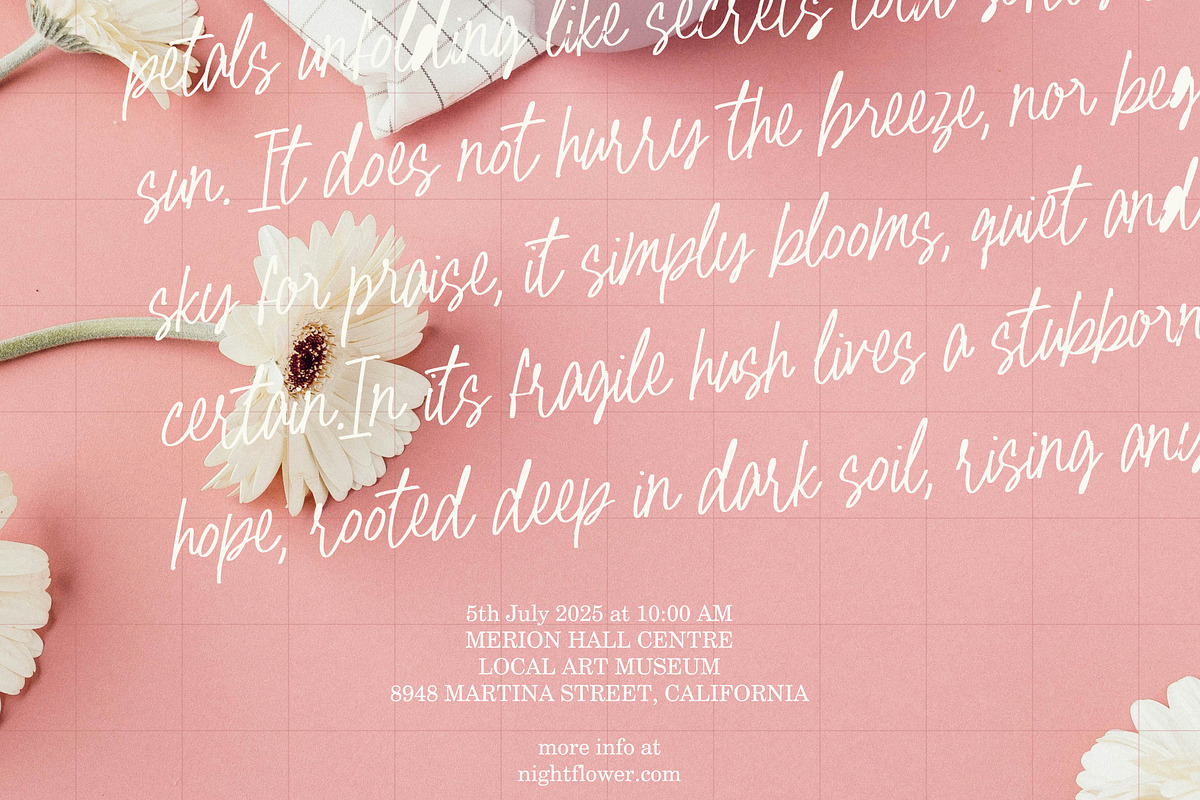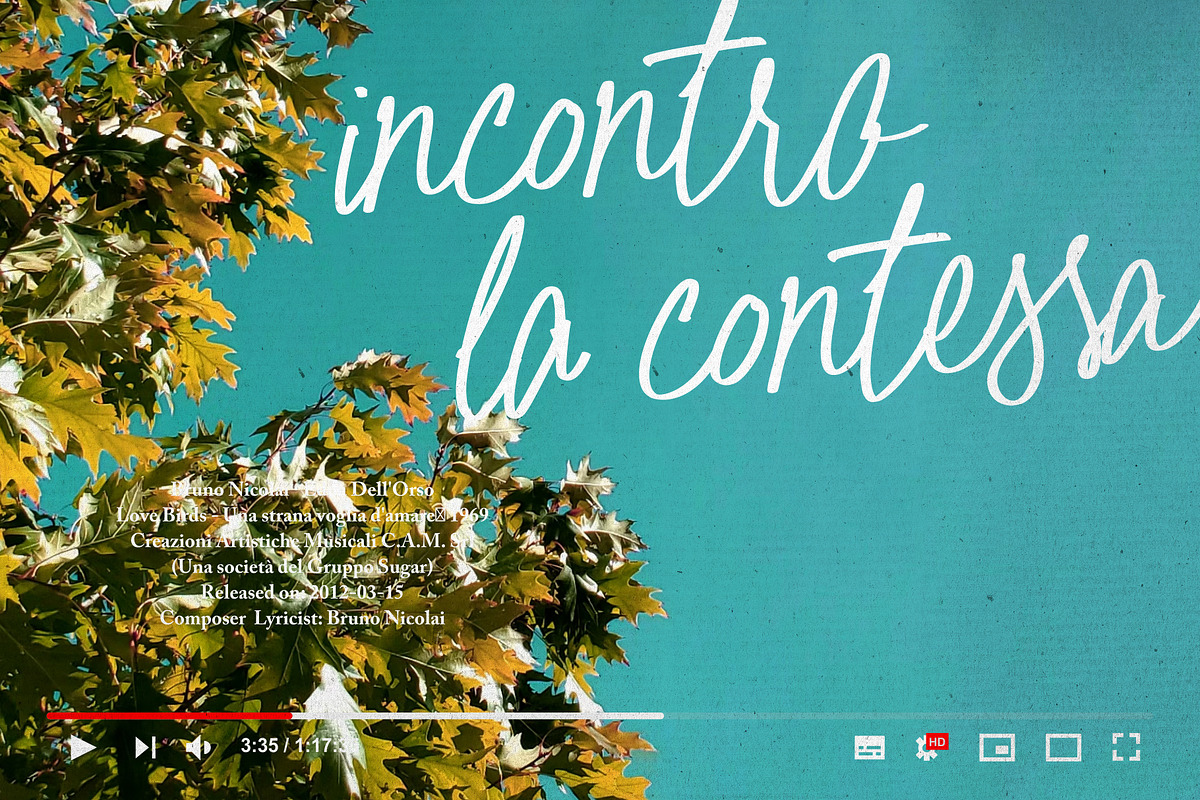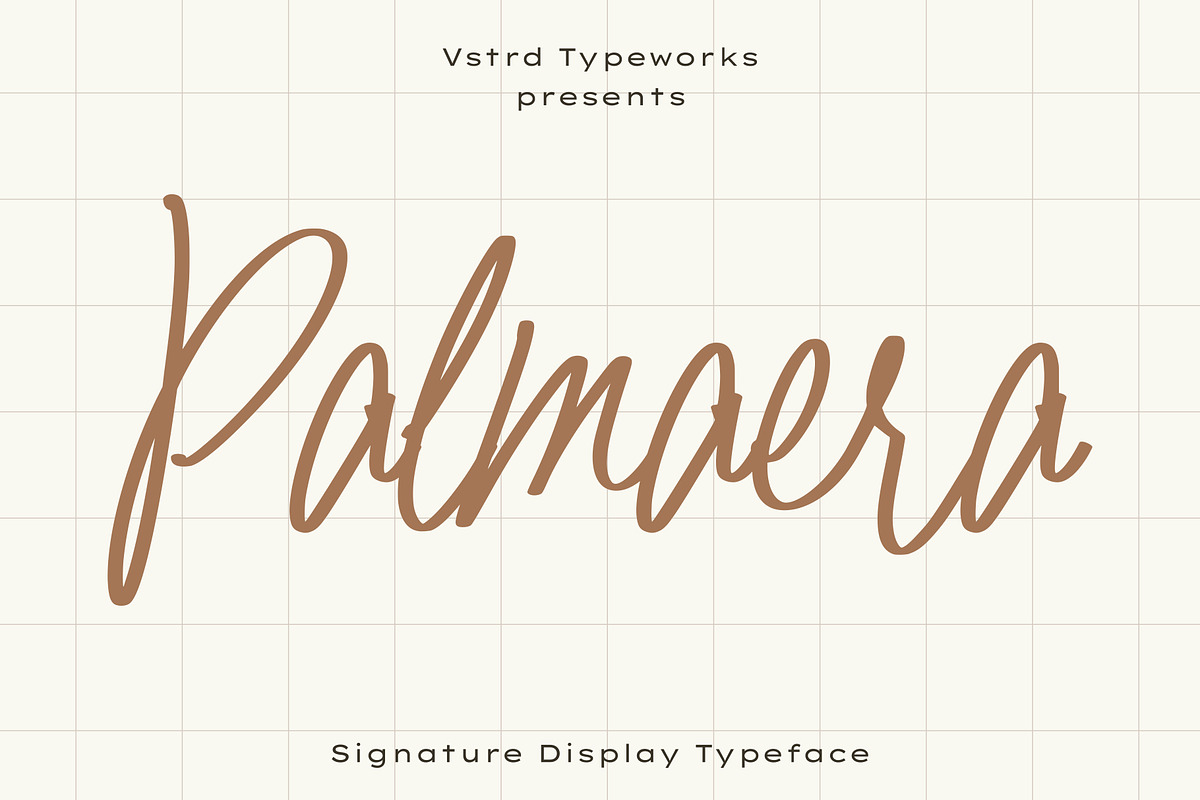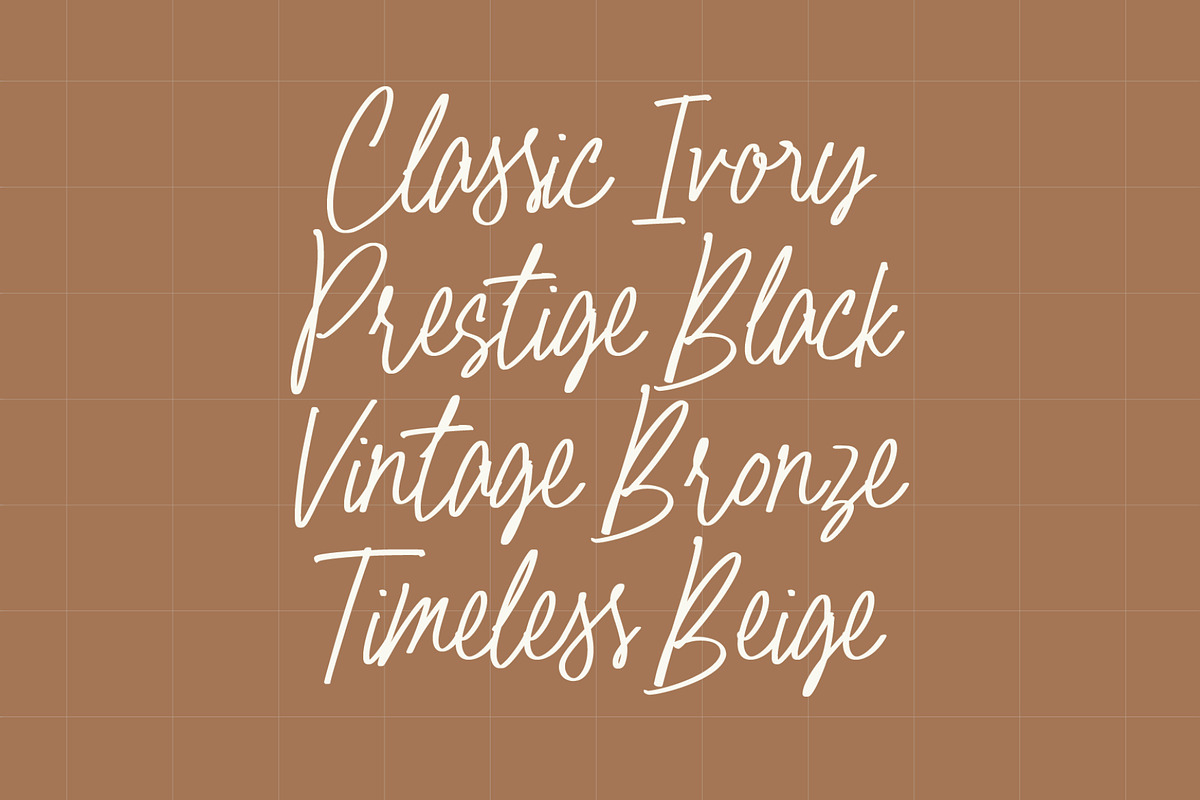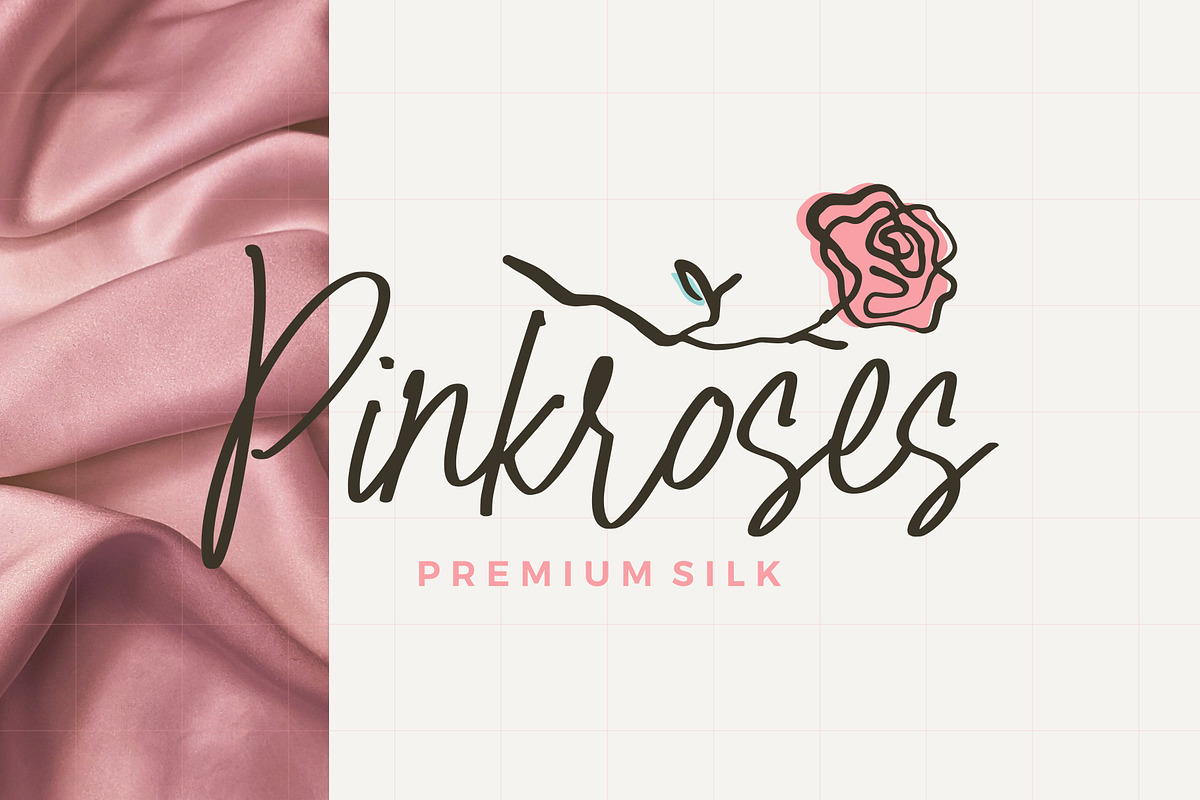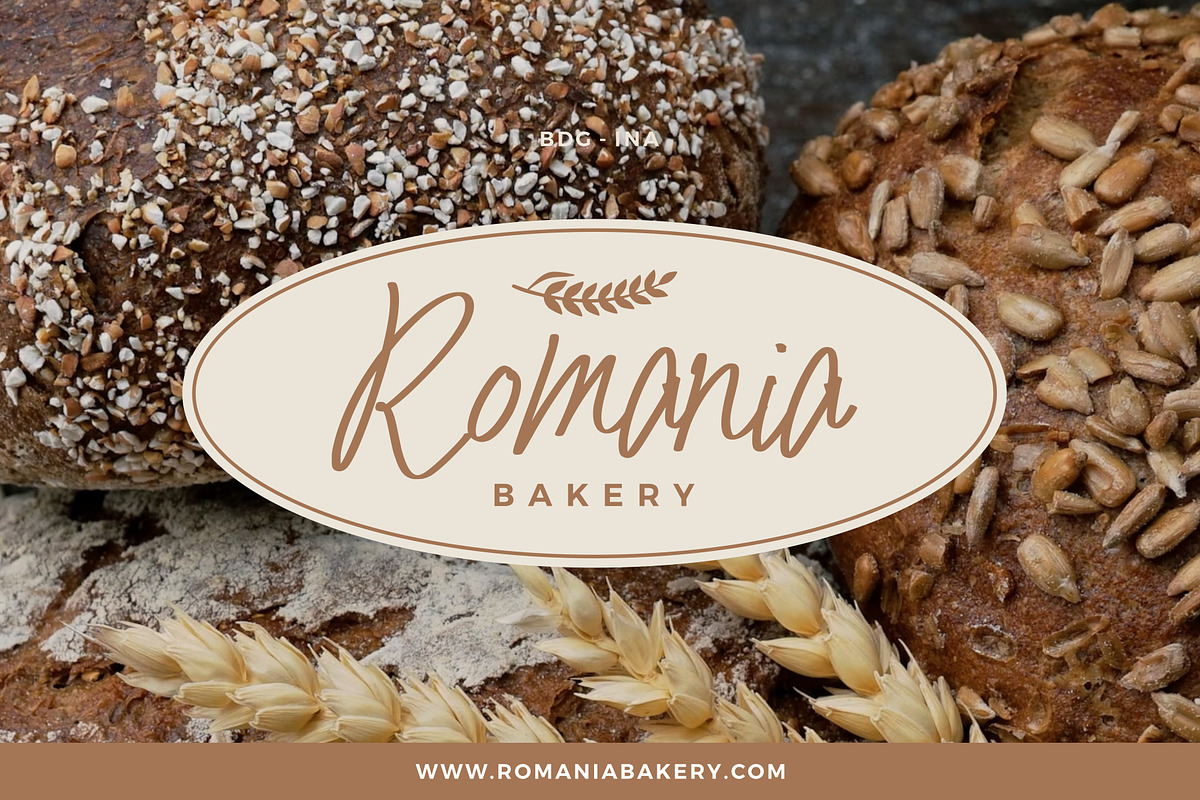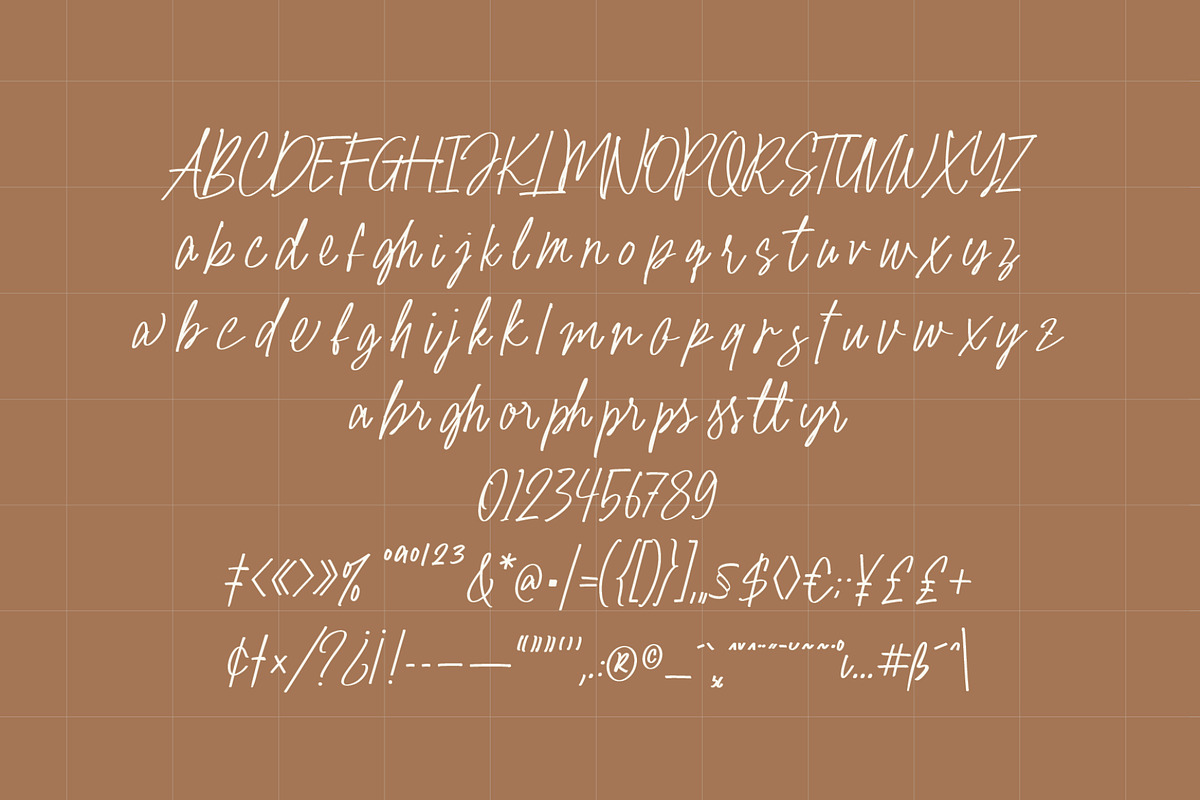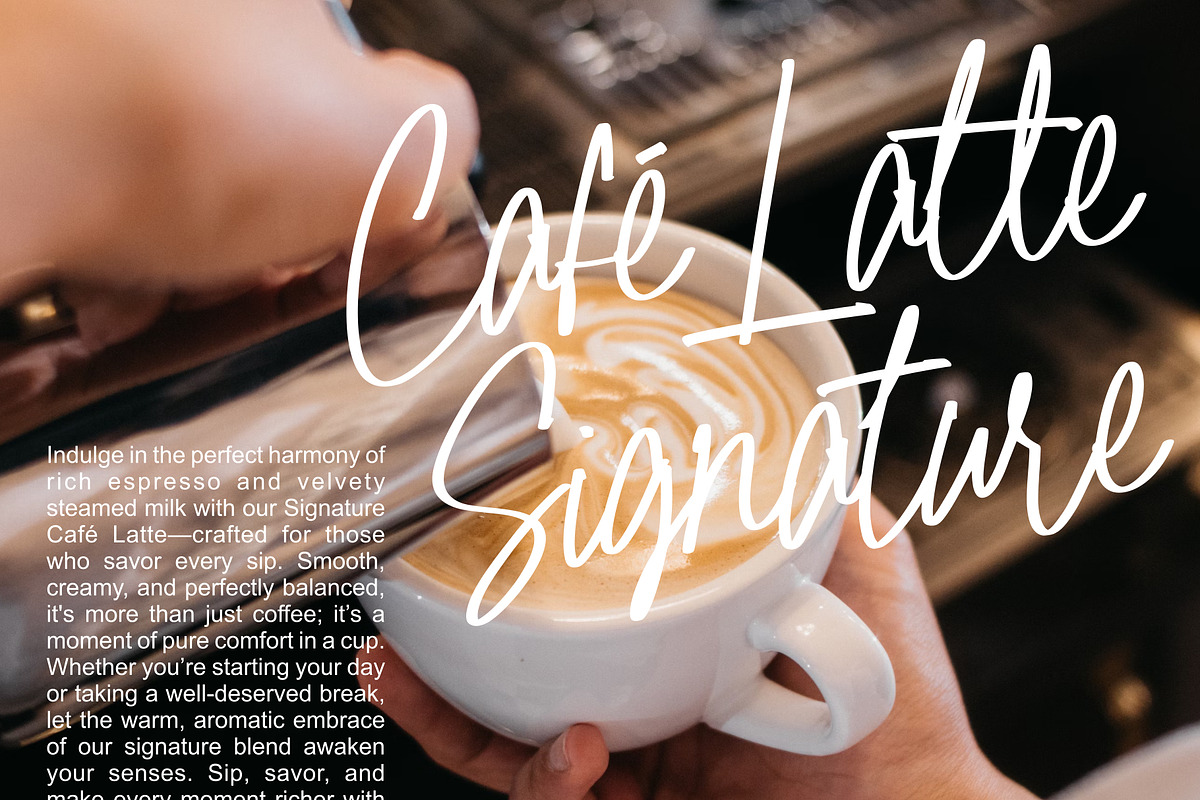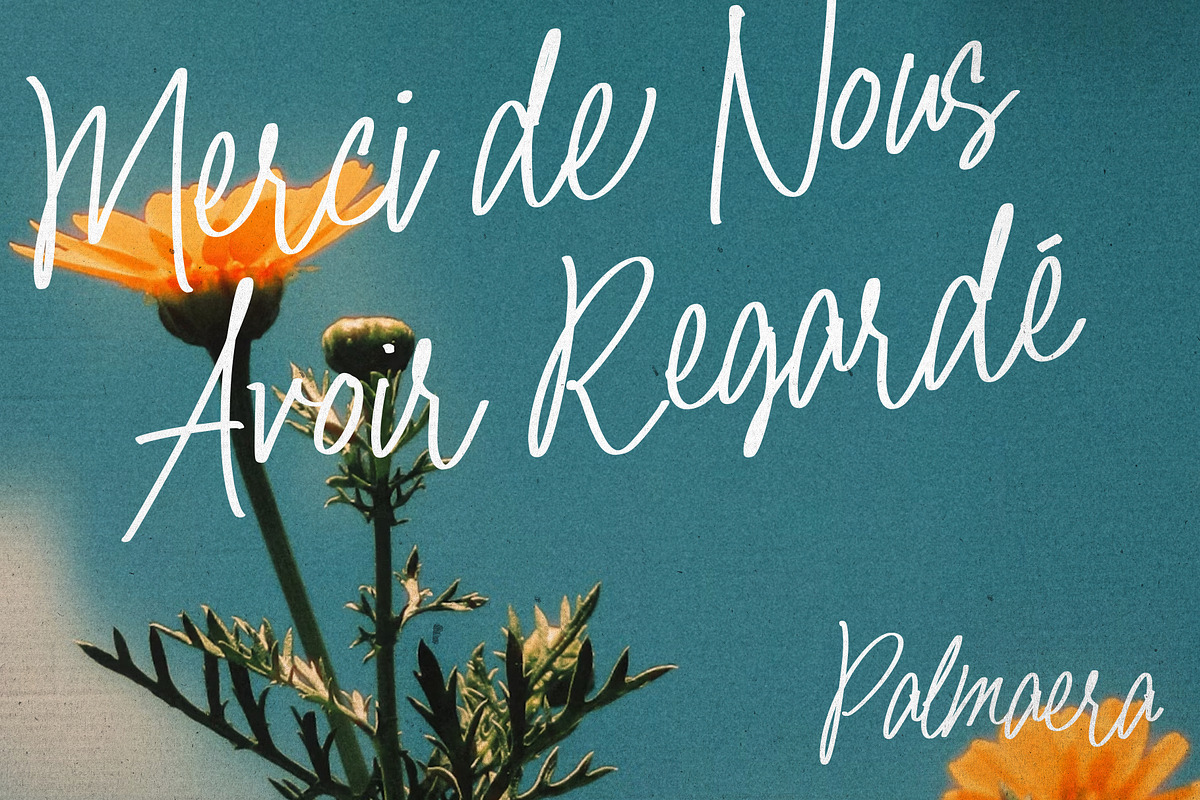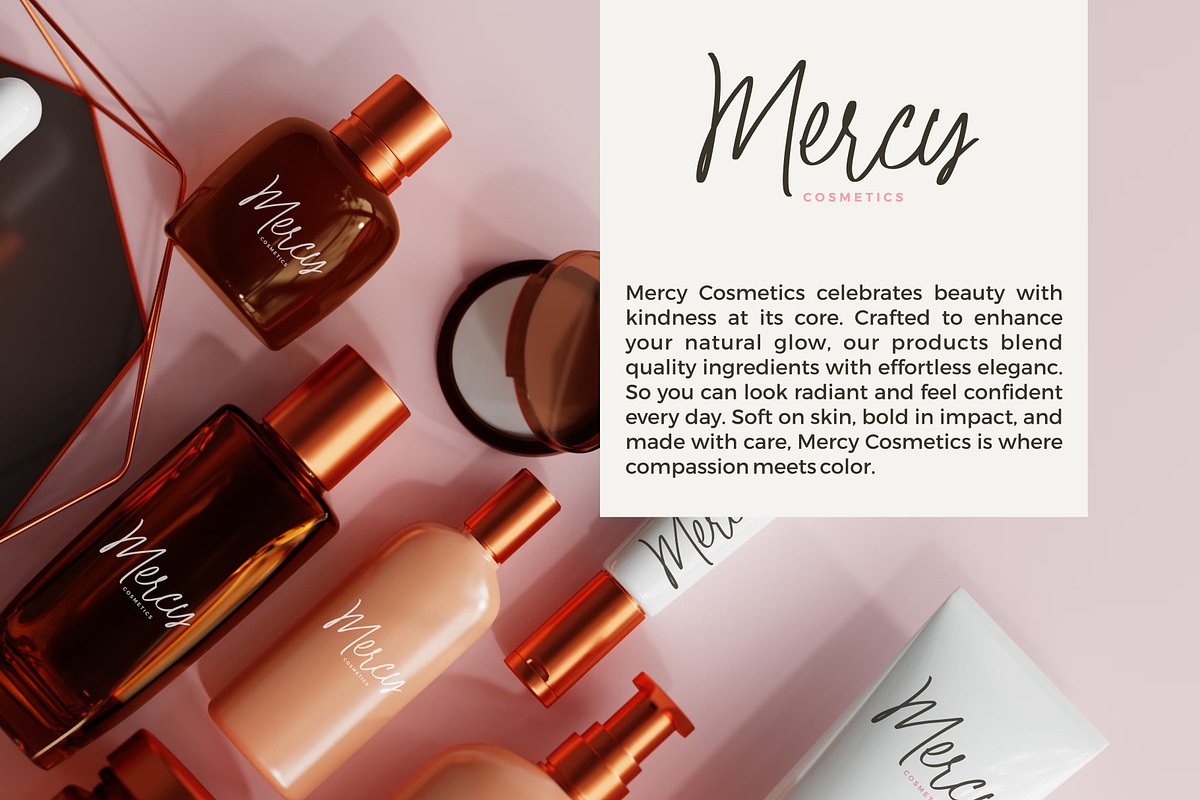
Palmaera - Signature Display Typeface
Palmaera is a graceful signature display typeface crafted to capture the beauty of natural handwriting. With flowing strokes, smooth curves, and an effortless rhythm, it brings sophistication and warmth to every design. Perfect for fashion branding, beauty products, editorials, invitations, logos, and premium packaging, Palmaera adds a personal yet polished touch that feels both modern and timeless. Elegant. Expressive. Distinctive. Palmaera turns every word into a signature statement.
- All Caps Uppercase & Lowercase